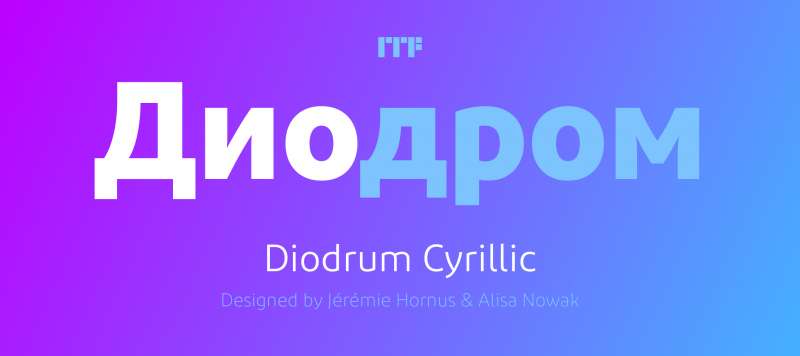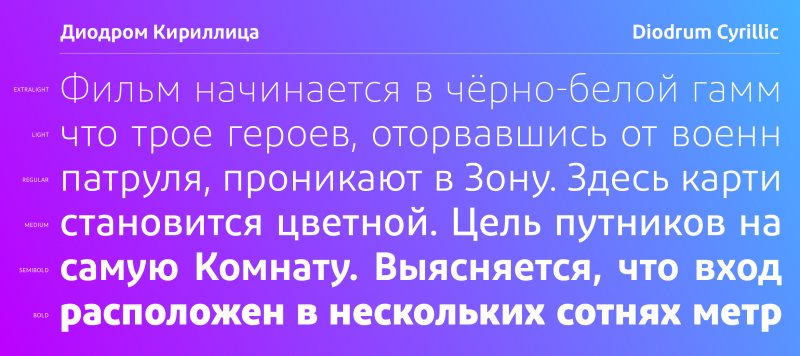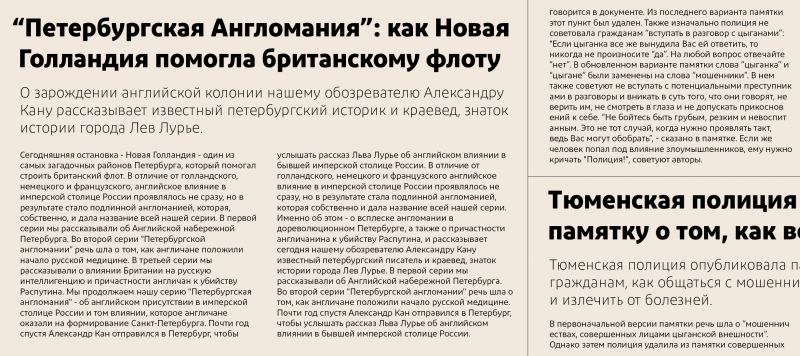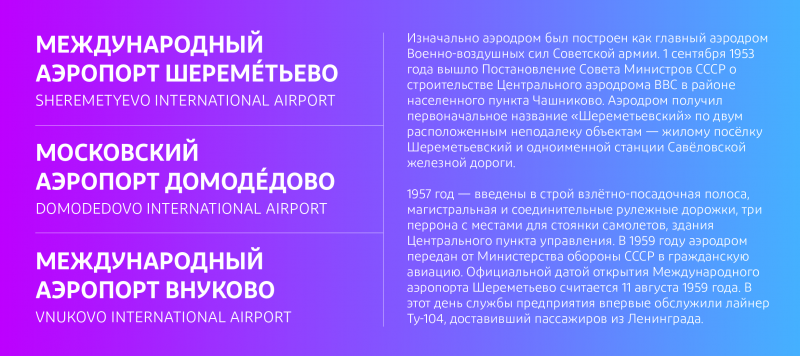
Following up on our successful Diodrum Latin and Diodrum Arabic families, Diodrum was further extended to support Cyrillic and Greek. The Diodrum Cyrillic family includes six styles that range in weight from Extralight to Bold. Each font’s character set has 604 glyphs, combining the full Diodrum Latin character set with 200+ Cyrillic glyphs. Diodrum Cyrillic is a generally monolinear design. Its x-height is tall, and its counterforms are large and open. Instead of straight lines, the typeface’s diagonals swell outward, which gives letters with prominent diagonals an increased dynamism. Thanks to its multiple weights and friendly look, Diodrum Cyrillic is an excellent choice for use in Corporate Design and UI/UX Design applications.
Family Name Diodrum Cyrillic
Designer(s) Alisa Nowak, Jérémie Hornus
Available Style Extralight, Light, Regular, Medium, Semibold, Bold
Classification Sans